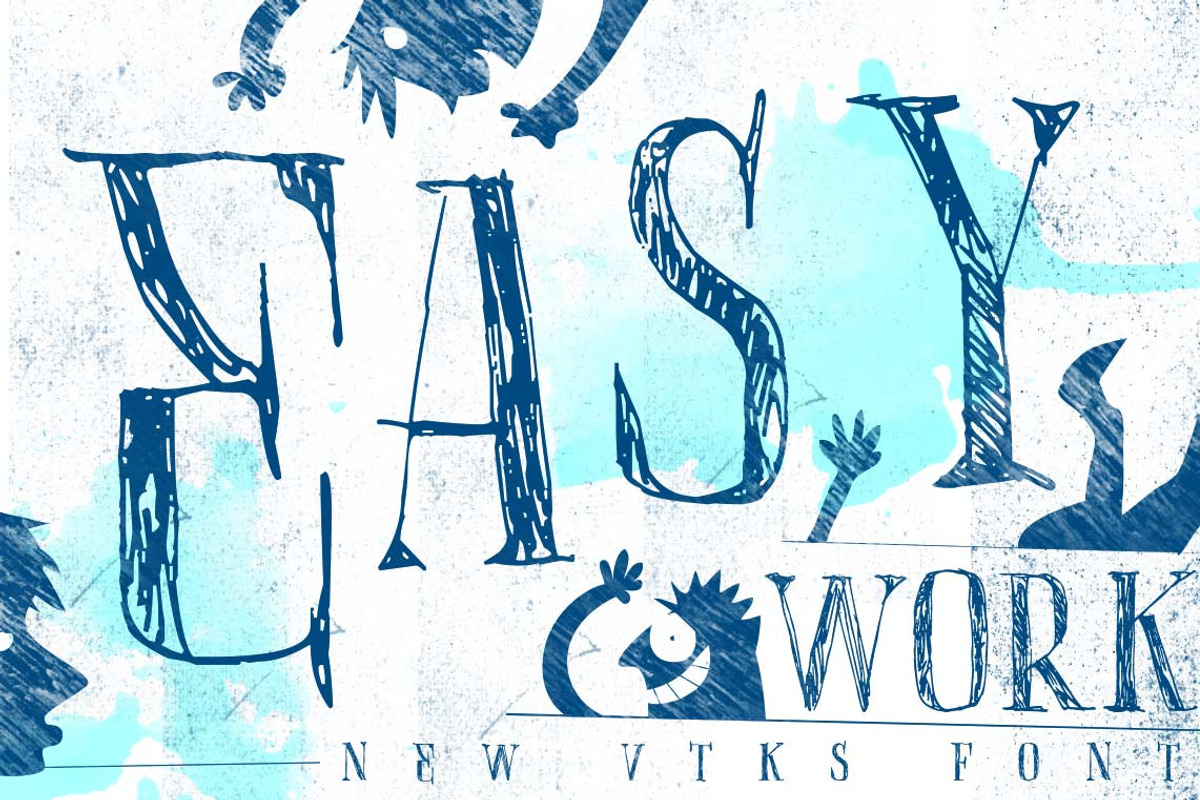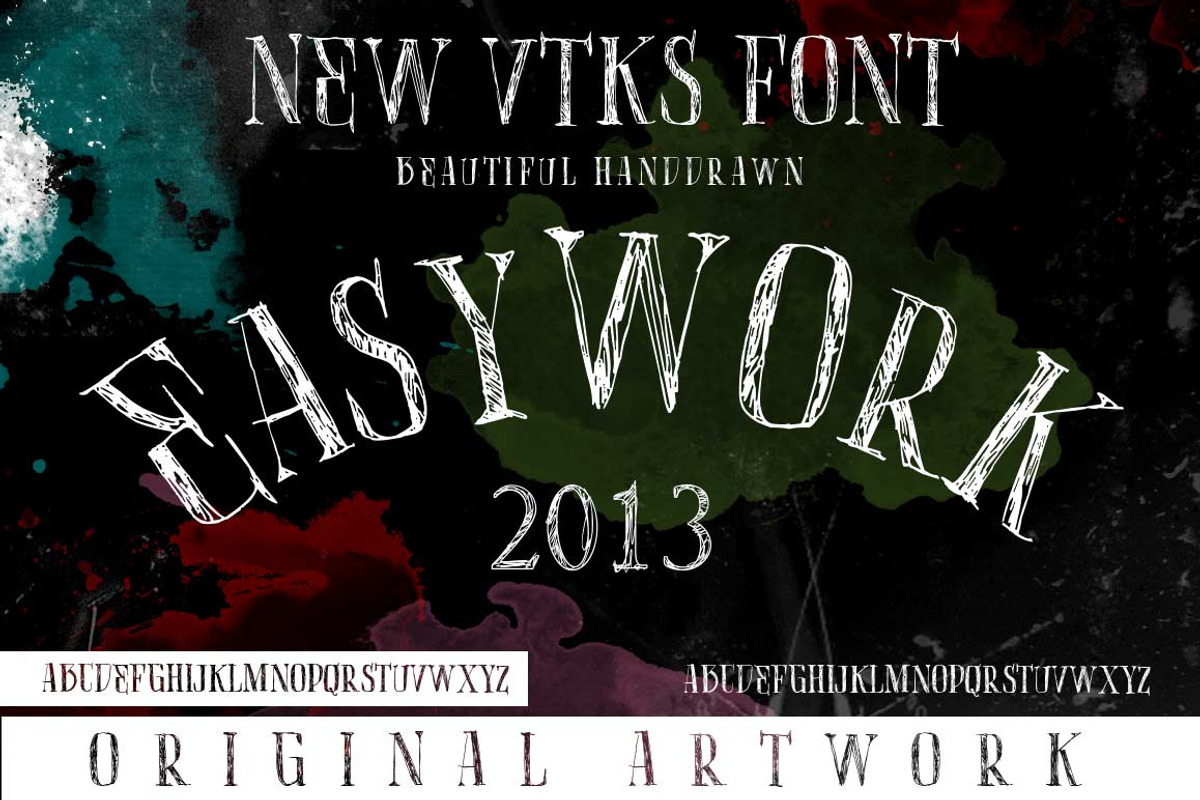
EasyWork font
EasyWork font by vtks design is a font selected for branding, posters, packaging, typography.
Why EasyWork font is worth a look
EasyWork font by vtks design fits naturally into Branding, posters, packaging, typography.